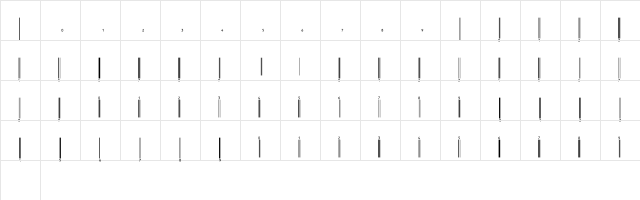
EanP72Tt Normal Font Preview
EanP72Tt Normal
Design Context for EanP72Tt Typeface
EanP72Tt is a composed and adaptable typeface that performs quietly and consistently across a wide range of design contexts.